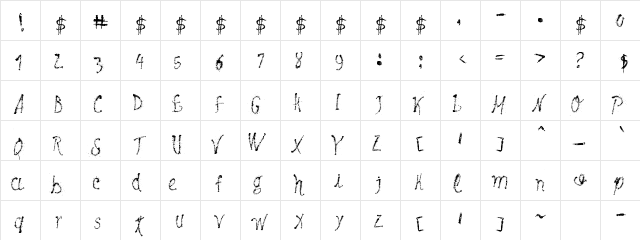
Maybe Pollock Regular Font Preview
Maybe Pollock Regular
Maybe Pollock Regular Font Details
| Designer | Galdino Otten |
Design Context for Maybe Pollock Typeface
Maybe Pollock is a composed and adaptable typeface that performs quietly and consistently across a wide range of design contexts.